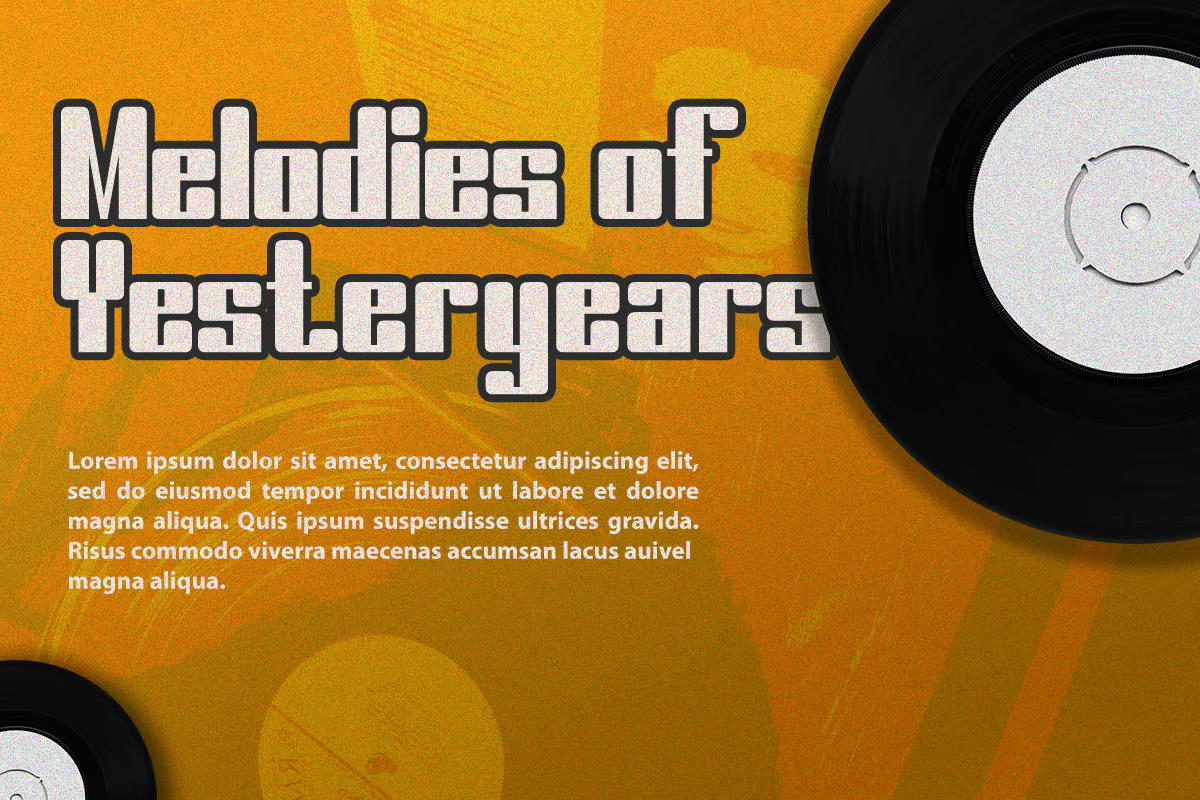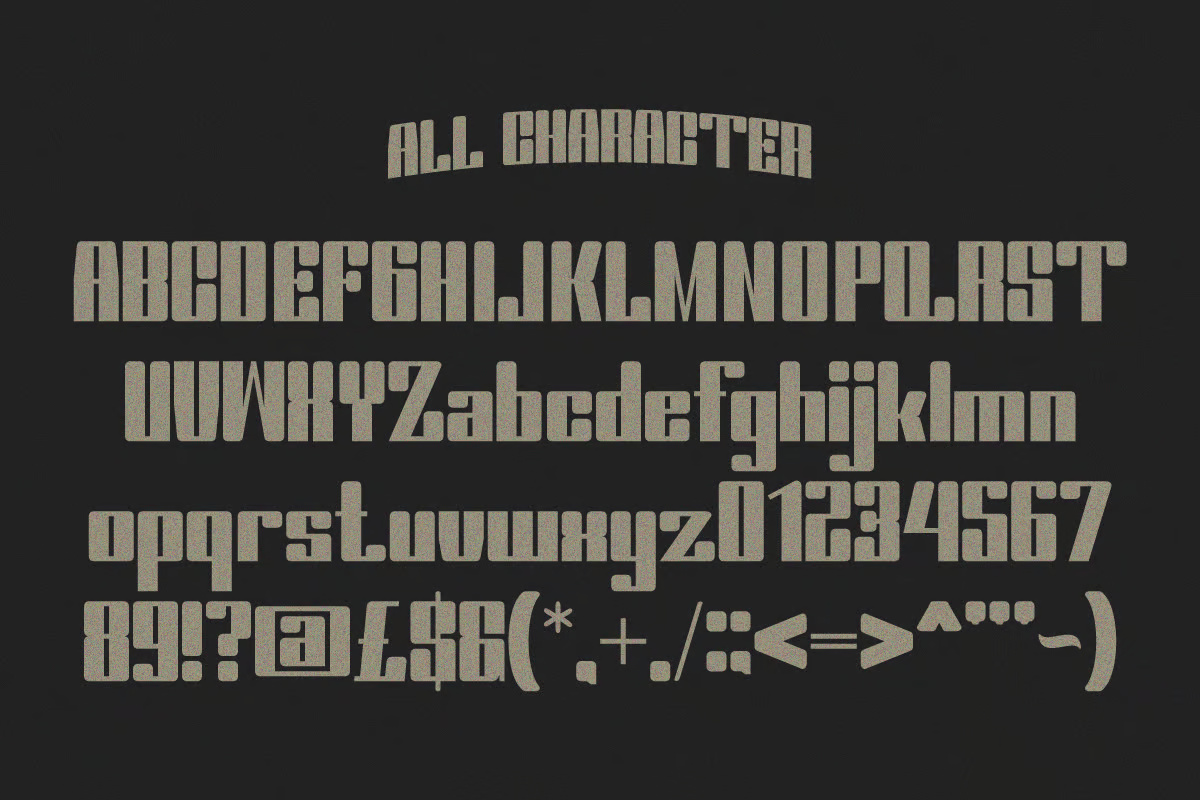
Tryone Bold Sans Serif Font
Elevate your designs with Tryone Bold Sans Serif Font, a modern typeface perfect for adding elegance and style to your projects. Whether it’s for quotes, logotypes, magazine headers, or more, this versatile font ensures your text stands out beautifully.
Tryone Bold Display Sans Serif Font
Tryone Bold Sans Serif Font